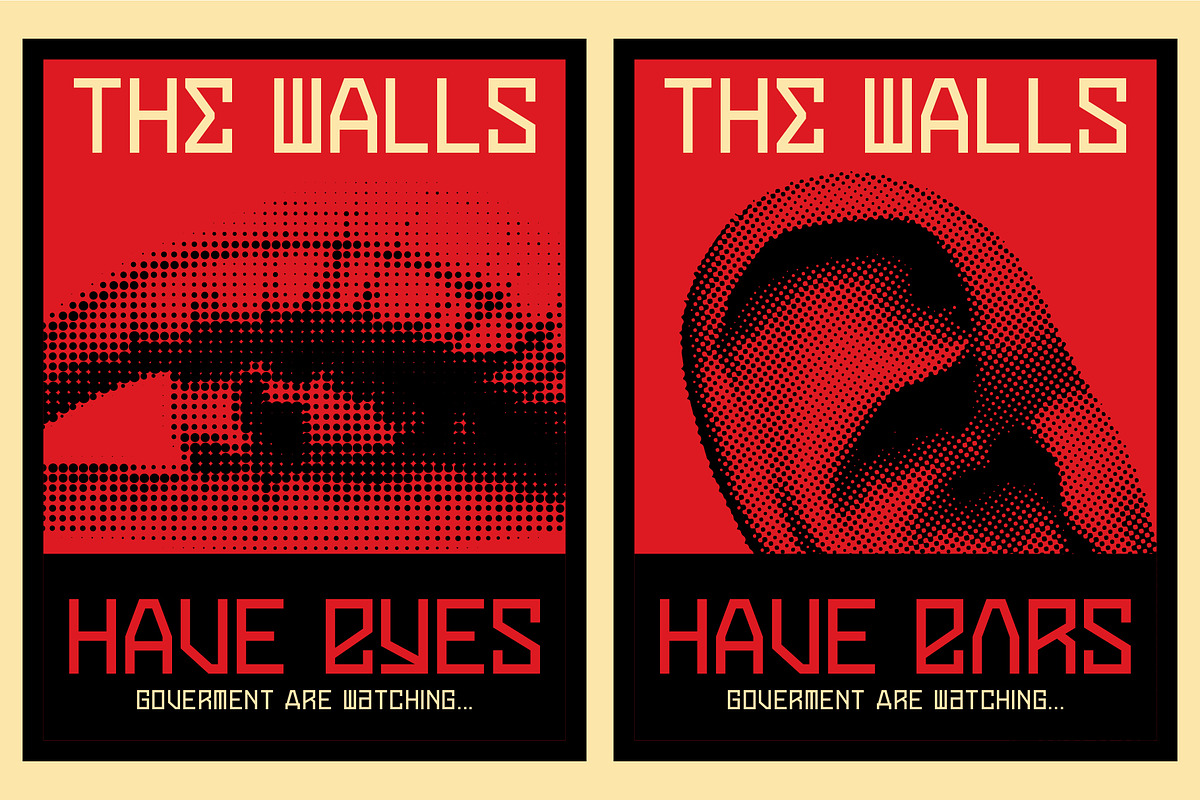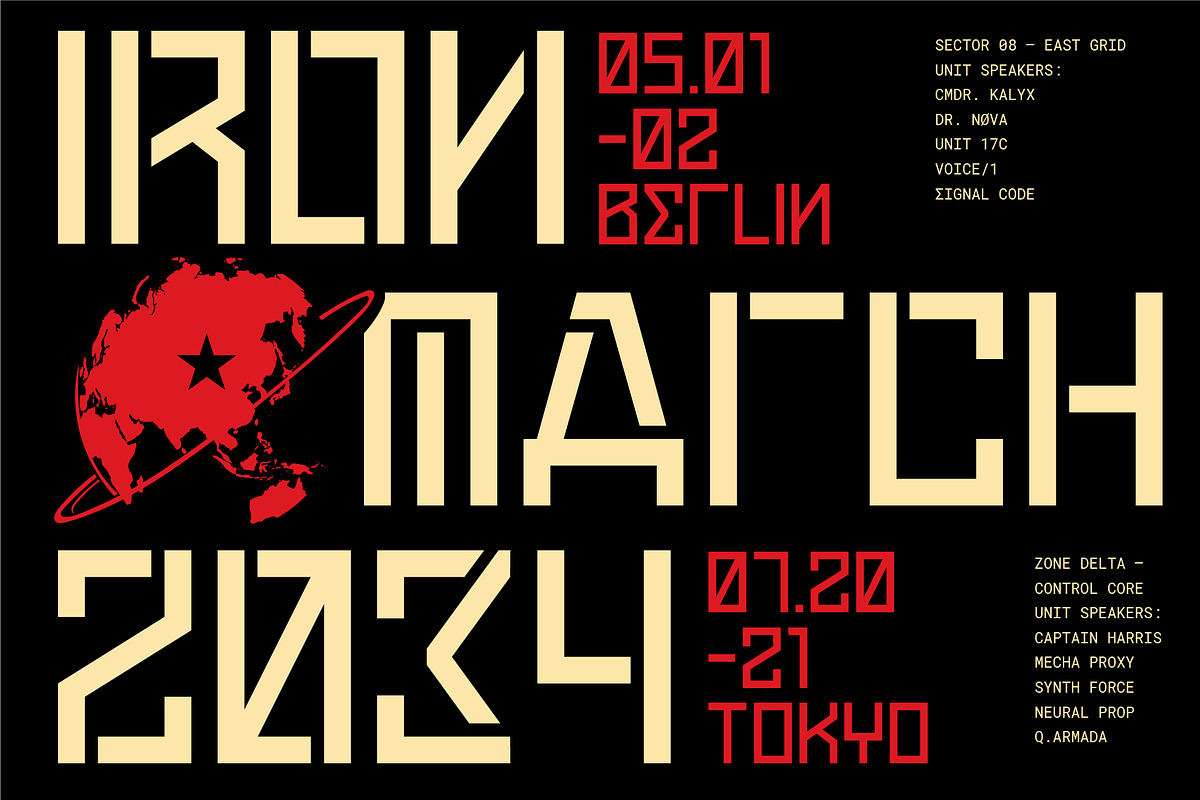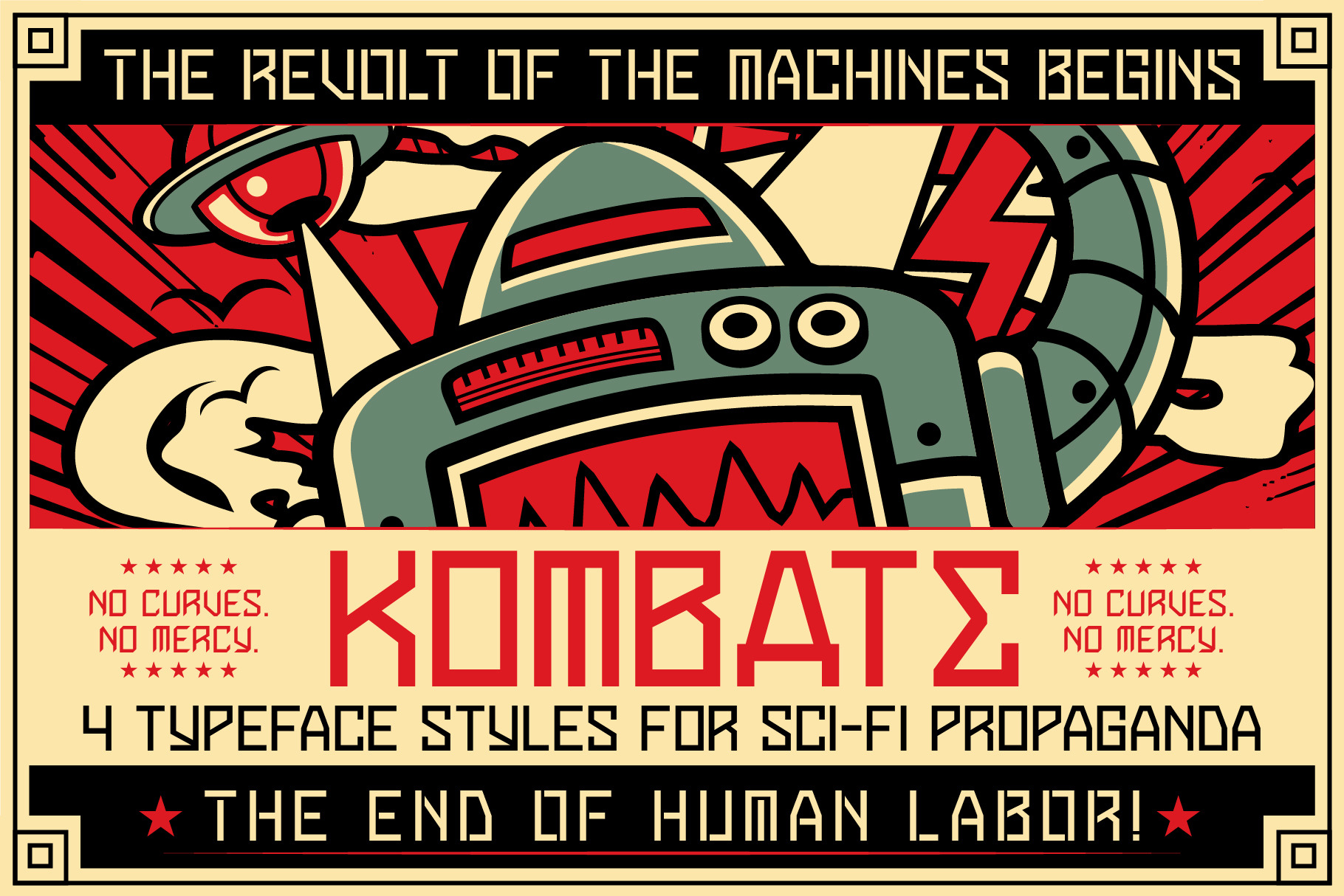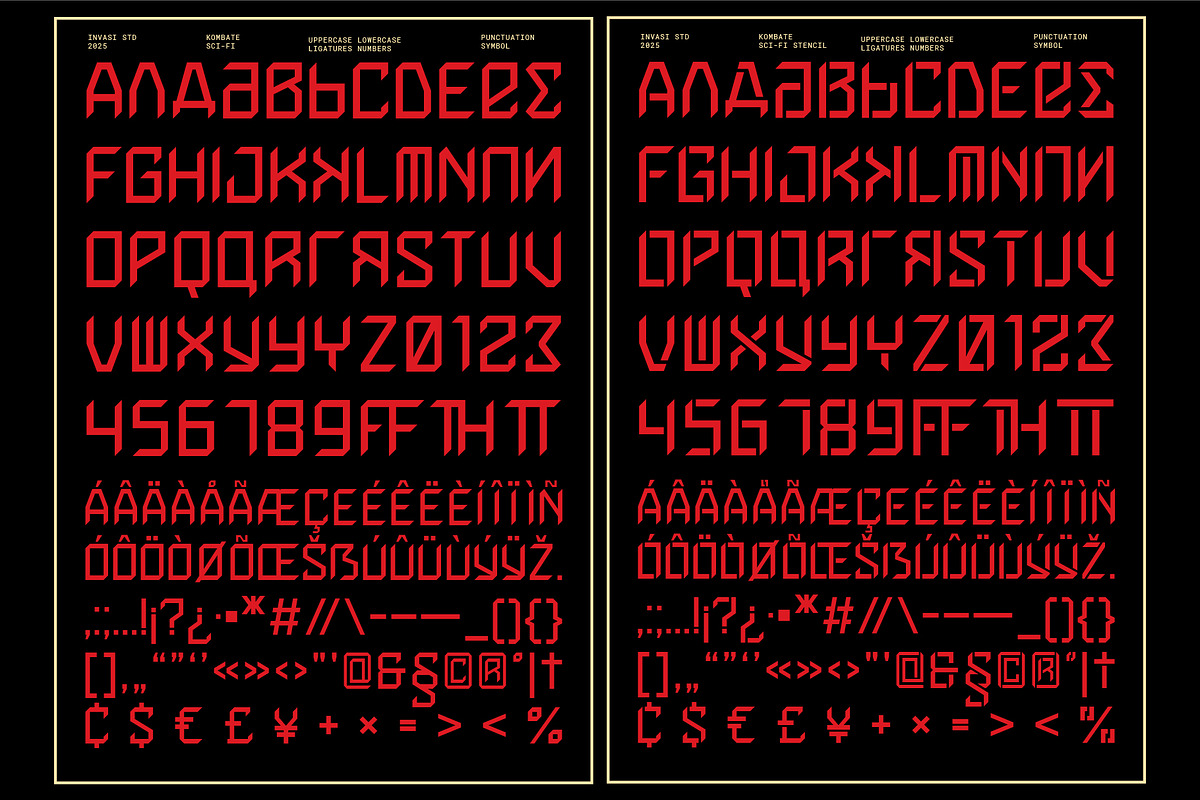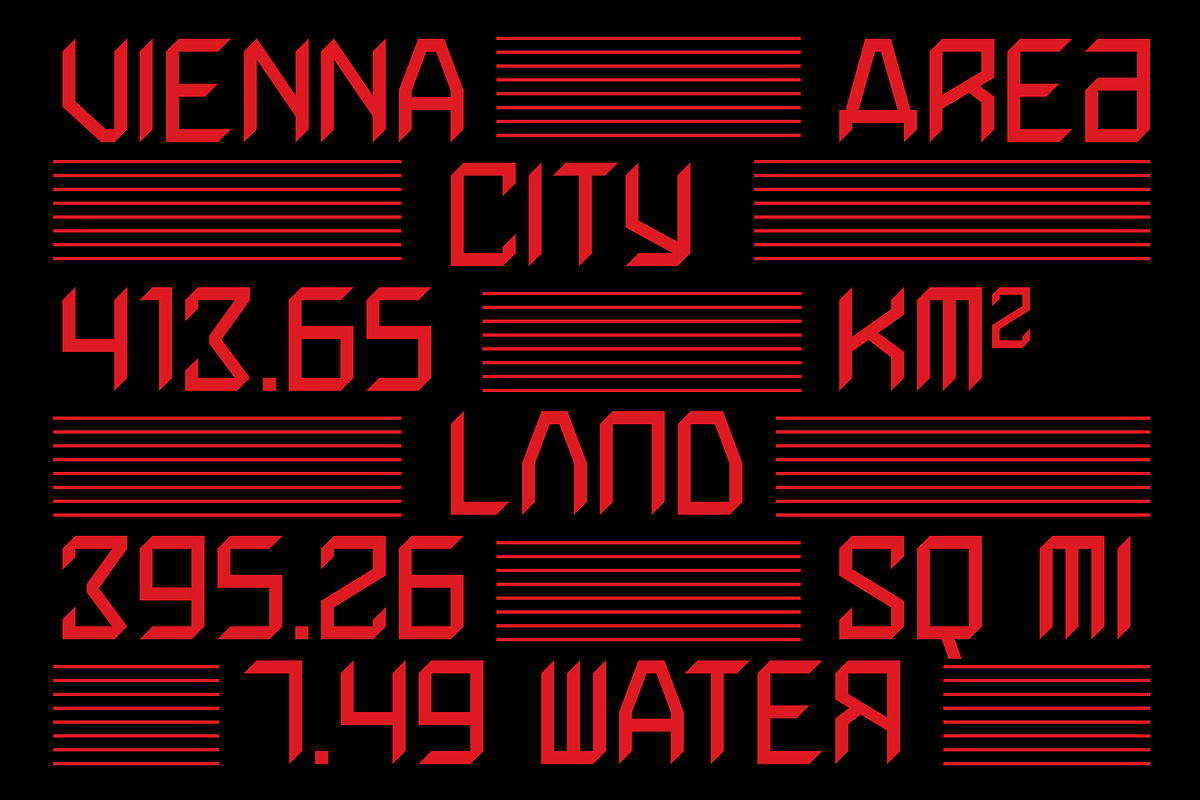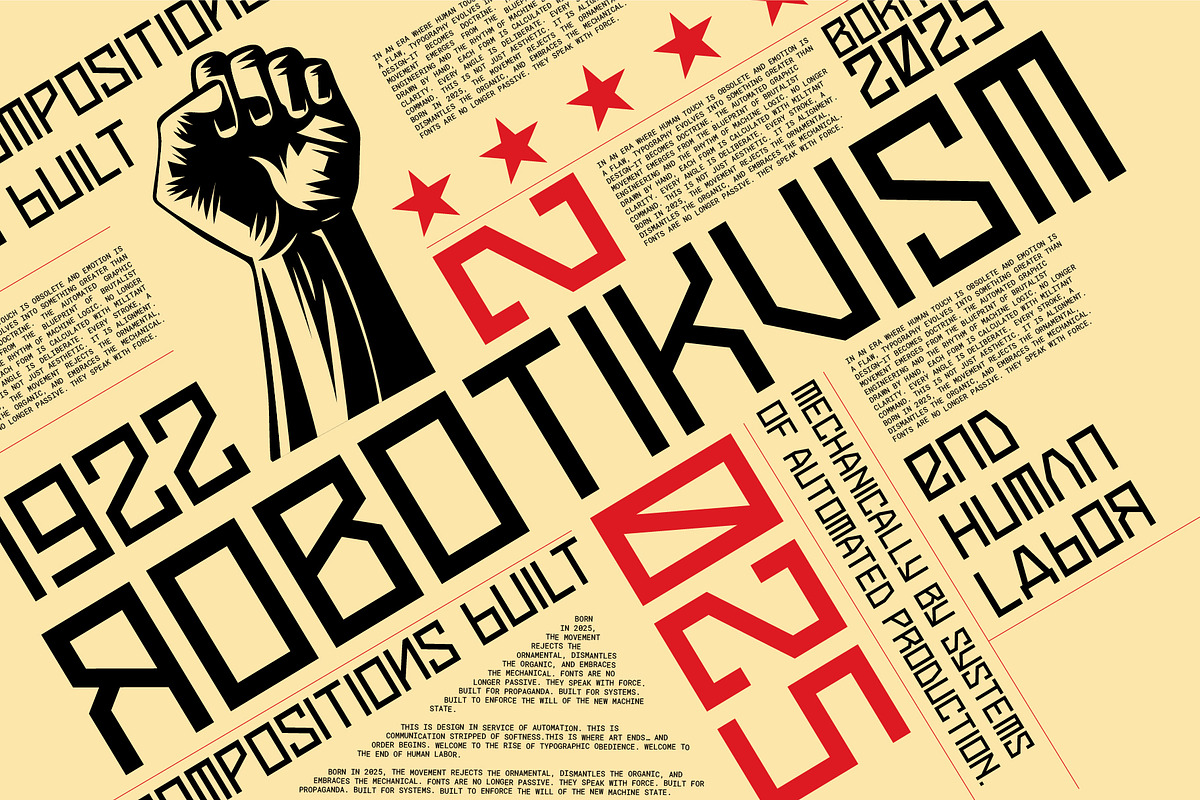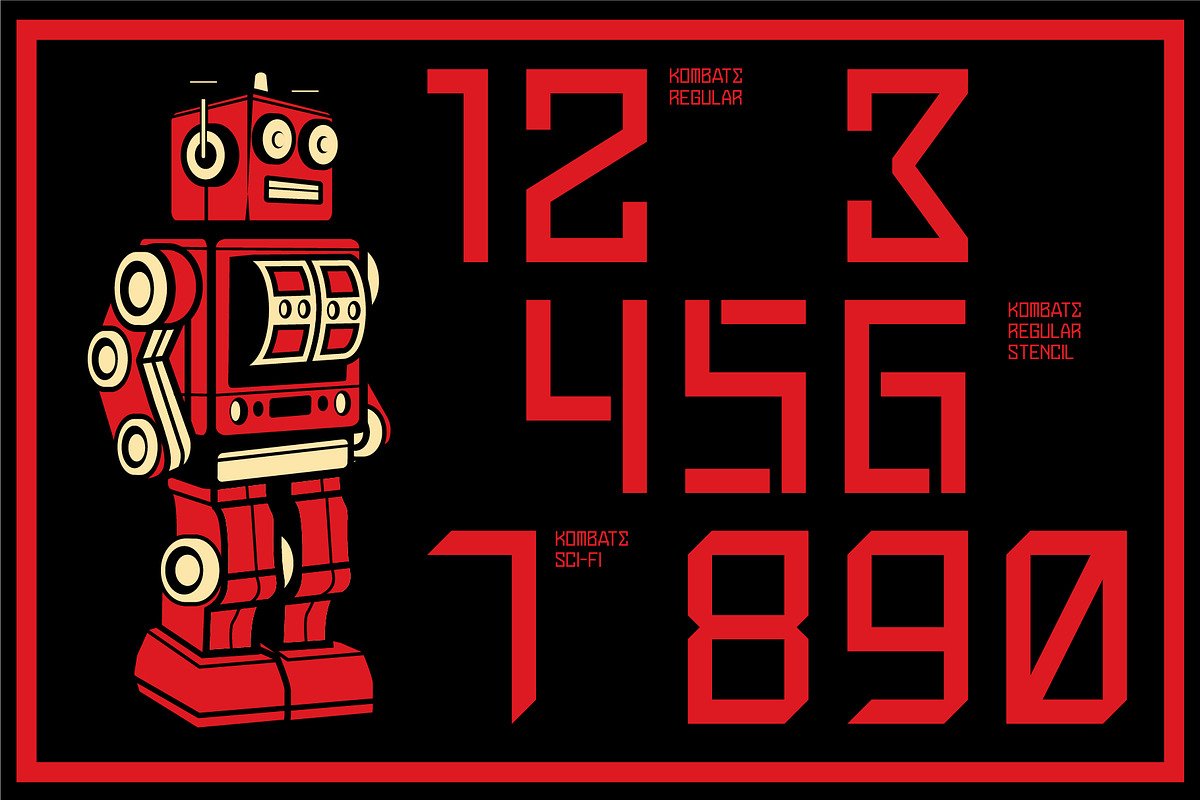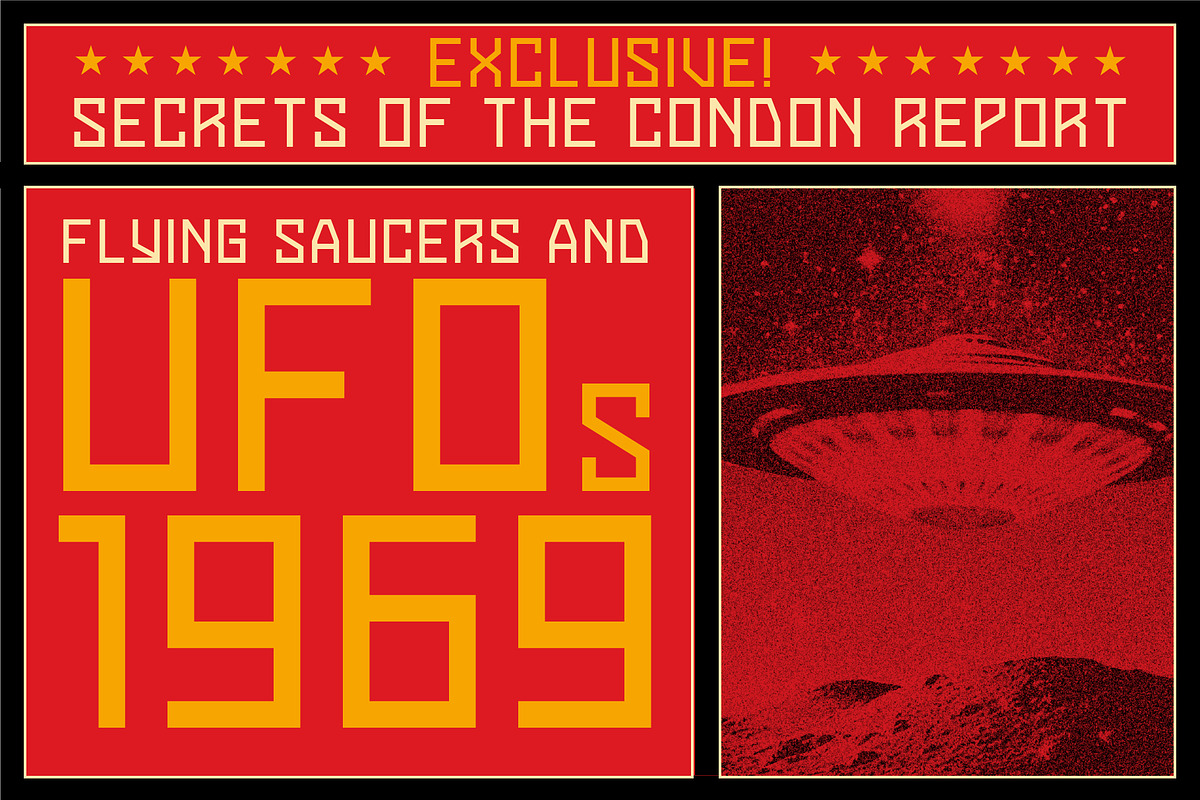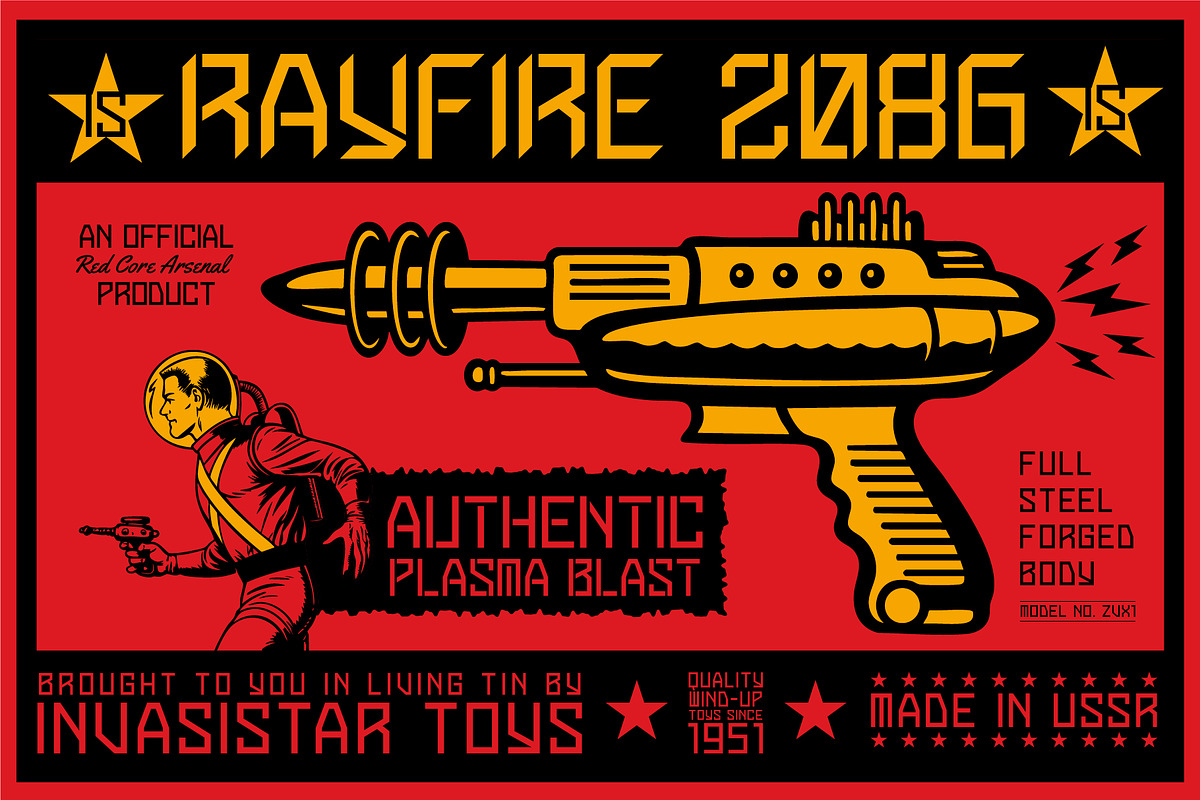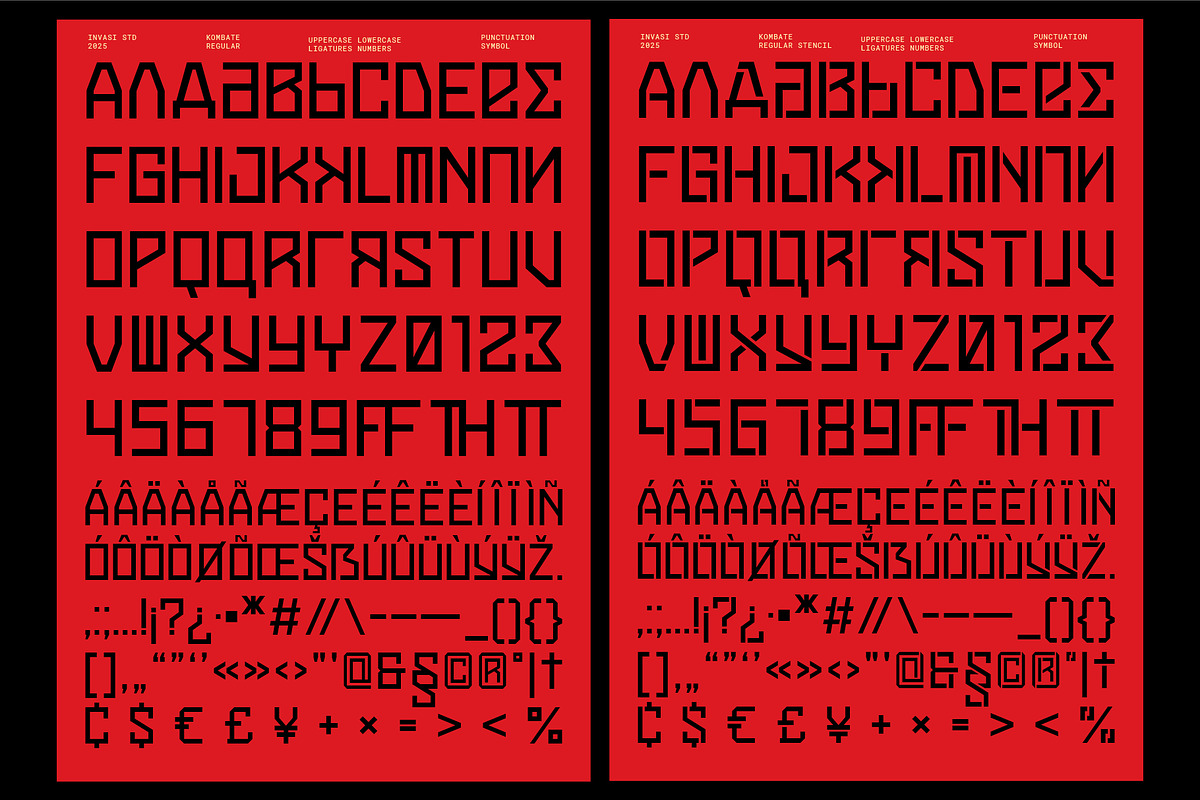
Kombate – Sci-Fi Propaganda Font
The machines have spoken. The era of human labor is over.
Kombate is a display typeface engineered for obedience—a weaponized font system forged in the fires of sci-fi warfare, state propaganda, and mechanical control. Brutal, angular, and unapologetically loud, this typeface rejects softness and celebrates sharp precision. Inspired by constructivist design, Soviet-era posters, and cold war typography, Kombate is built for systems, not sensitivity.
Equipped with 4 militant styles — Regular, Regular Stencil, Sci-Fi, and Sci-Fi Stencil — Kombate gives you tactical control over any visual field. Whether it’s a techno-fascist manifesto, a dystopian user interface, or an uprising campaign, this font demands attention.
Kombate features alternate characters inspired by Cyrillic script, adding an extra layer of Eastern Bloc authority to your layout. Paired with extended multilingual support, stylized numerals, and full punctuation, it’s ready to march across your protest posters, vaporwave zines, album covers, digital interfaces, and authoritarian branding.
No curves. No mercy. Just control. Kombate doesn’t decorate. It declares.
- Alternates & Ligature
- Multilanguage Supports 131+ Latin-based languages